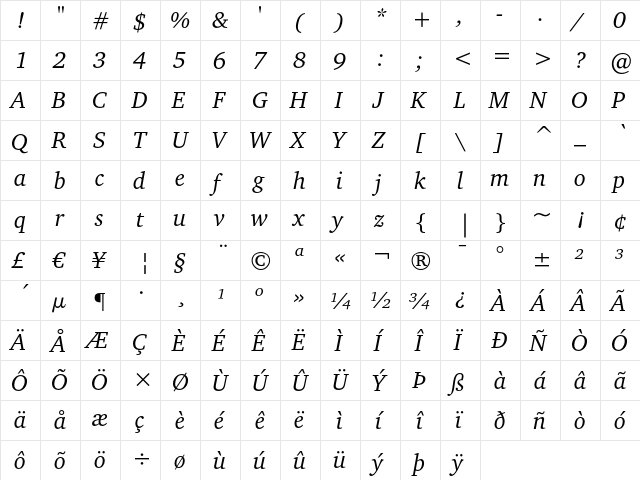
Bitstream Charter Italic
Design Context for Bitstream Charter Typeface
Bitstream Charter is a composed and adaptable typeface that performs quietly and consistently across a wide range of design contexts. The slanted form adds forward momentum and visual energy.
Pro Tip: Try Bitstream Charter for annotation and caption copy alongside an upright companion — the contrast in angle creates a dynamic but ordered typographic system.